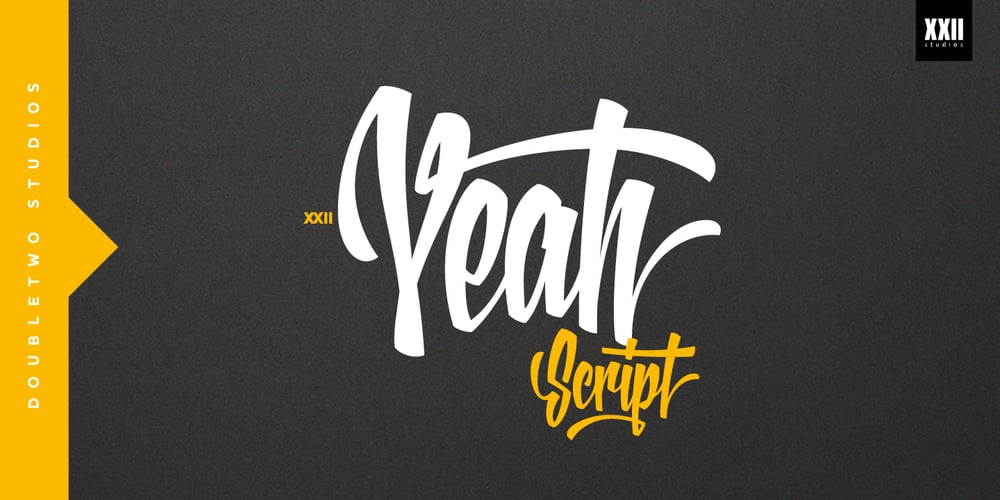
XXII YeahScript Font Family was designed by Lecter Johnson and published by Doubletwo Studios. XXII YeahScript contains 1 styles and family package options. XXII YeahScript – This brush script font with its large range of alternates fits great for any kind of signpainter job. It is designed to easily create cool logos, headlines and text phrases within a blink of an eye. Just open your glyphspalette and simply chose the alternates that fits best to your creation. Lots of swashes alternates and linestrokes will help you to complete your unique designs. For further detail click Behance Project or download the pdf in the gallery.